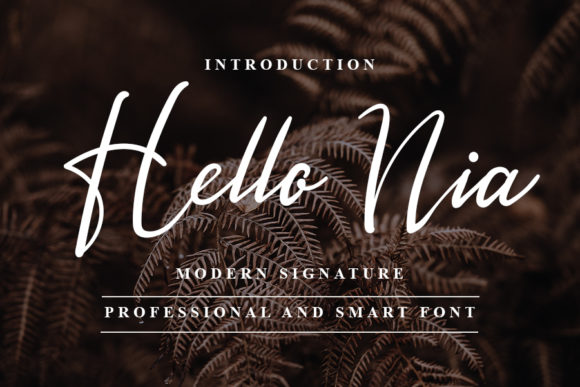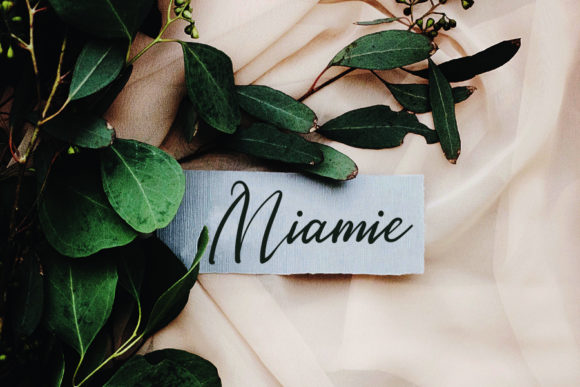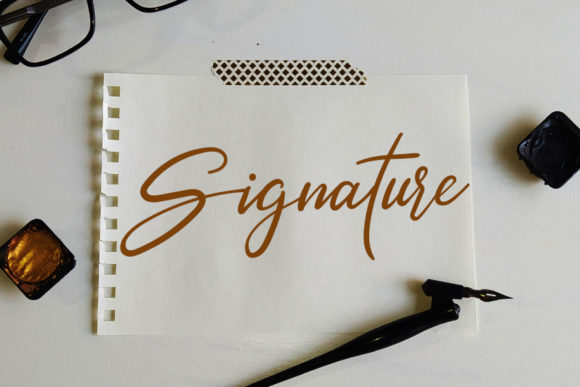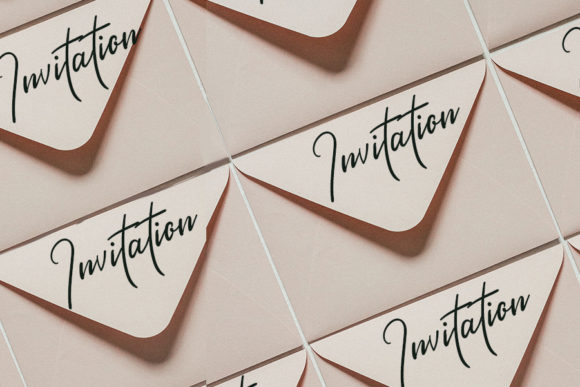
About Hello Nia Font
Hello Nia is a beautiful handwritten font, with a delicate flow. It looks stunning on wedding invitations, thank you cards, quotes, greeting cards, logos, business cards and every other design which needs a handwritten touch.